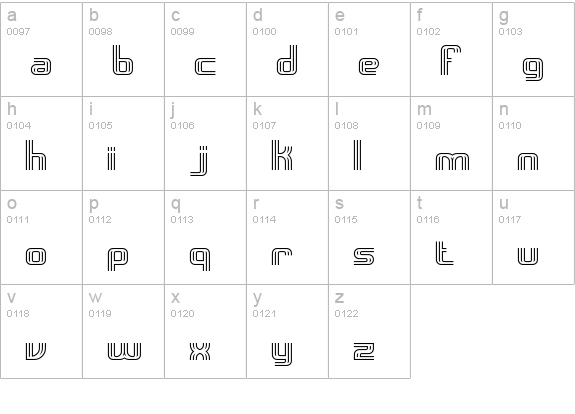
Intersect O BRK Font Details
Intersect O BRK font is a stunning typeface that combines sleek, modern lines with a touch of geometric charm. Its unique design features intersecting lines that create an eye-catching visual effect, making it perfect for bold headlines, logos, and branding projects. This font is not only visually appealing but also highly versatile, as it can be used in a variety of design contexts. Whether you're working on a website, a poster, or even a mobile app, Intersect O BRK font will add a contemporary and dynamic touch to your project. What makes Intersect O BRK font even more appealing is that it is freely available to download at FontsMarket.com. This means that you can easily access this font and use it in your designs without any cost. Whether you're a professional designer looking for a fresh addition to your font library or a student exploring new creative possibilities, Intersect O BRK font is the perfect choice. With its sleek lines, geometric charm, and free availability, Intersect O BRK font is a must-have for any designer looking to make a bold statement. Download it today from FontsMarket.com and discover the endless possibilities this font has to offer.